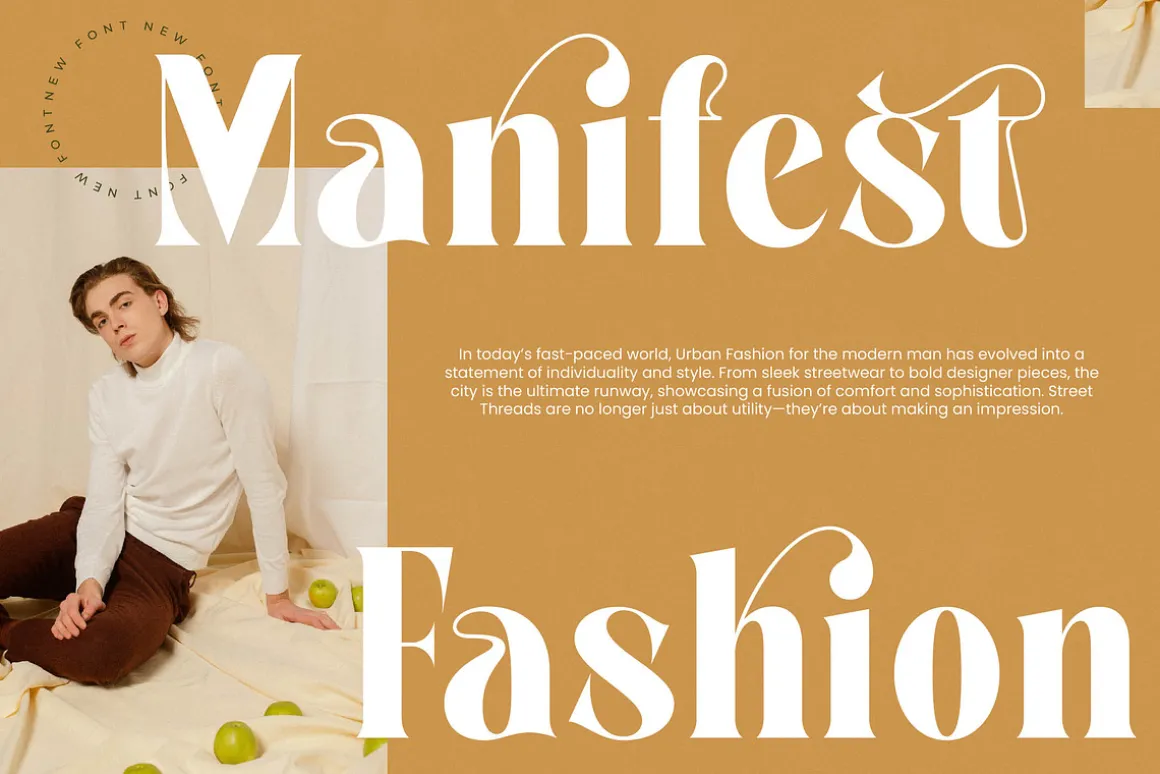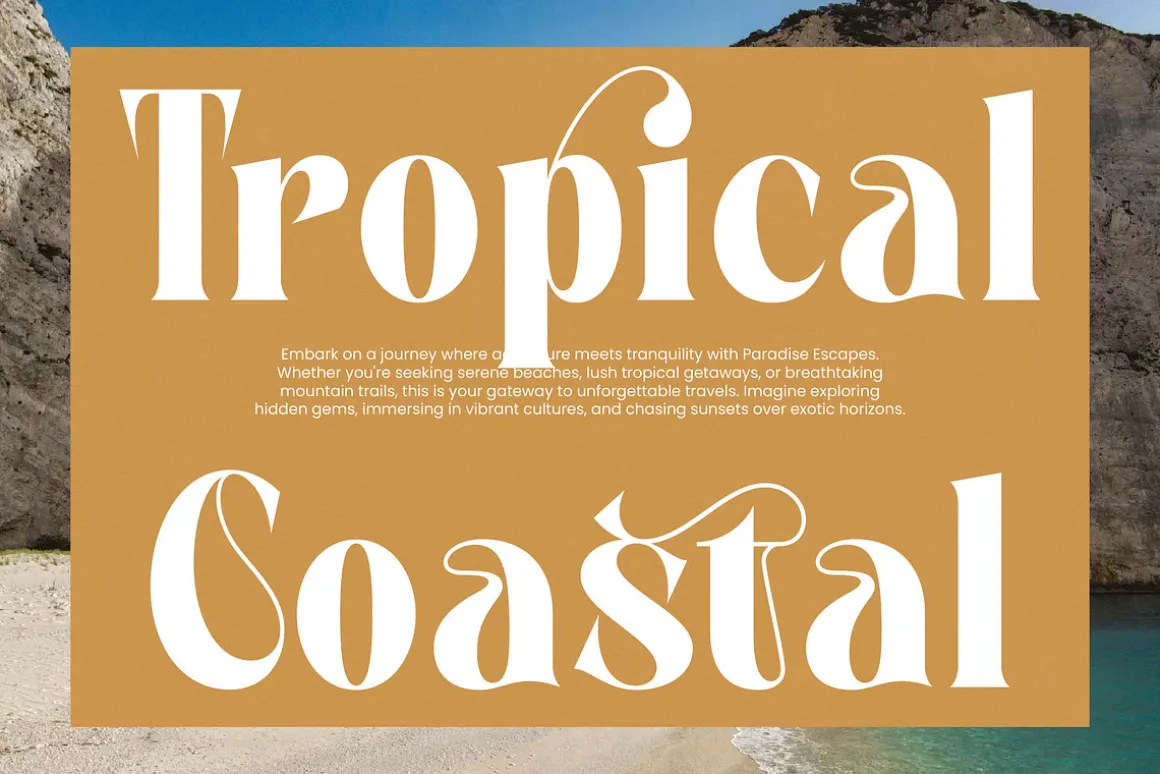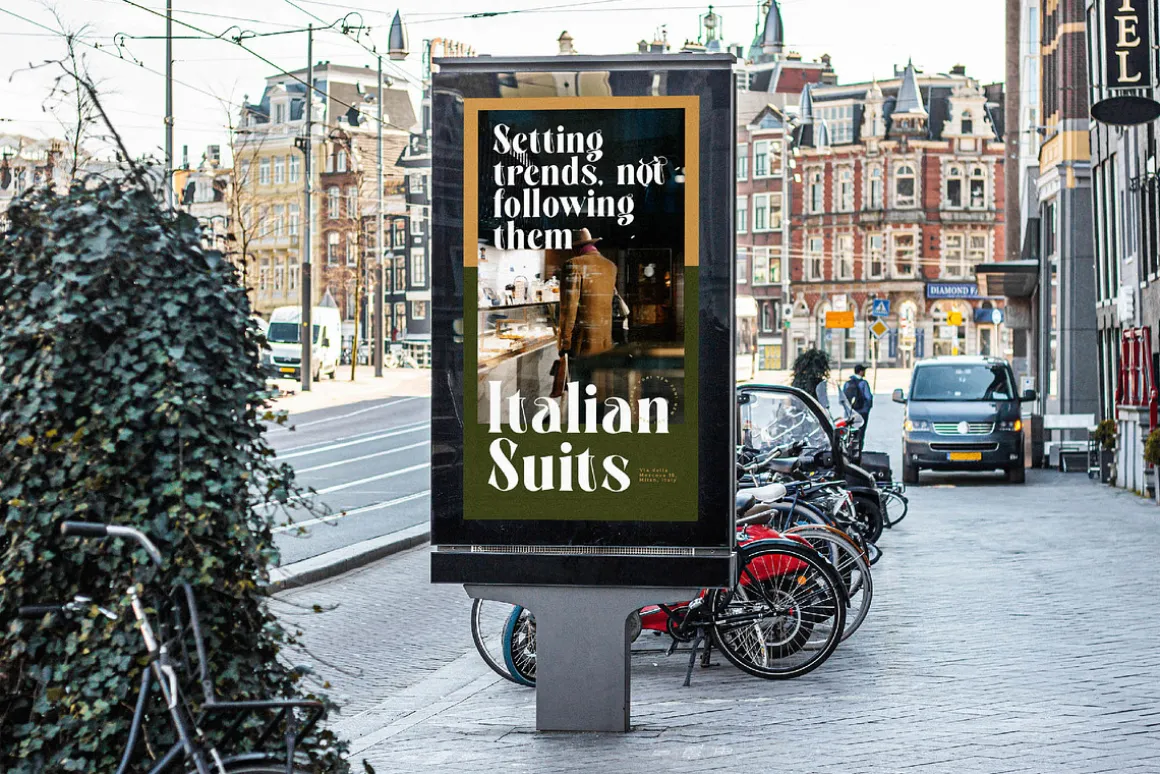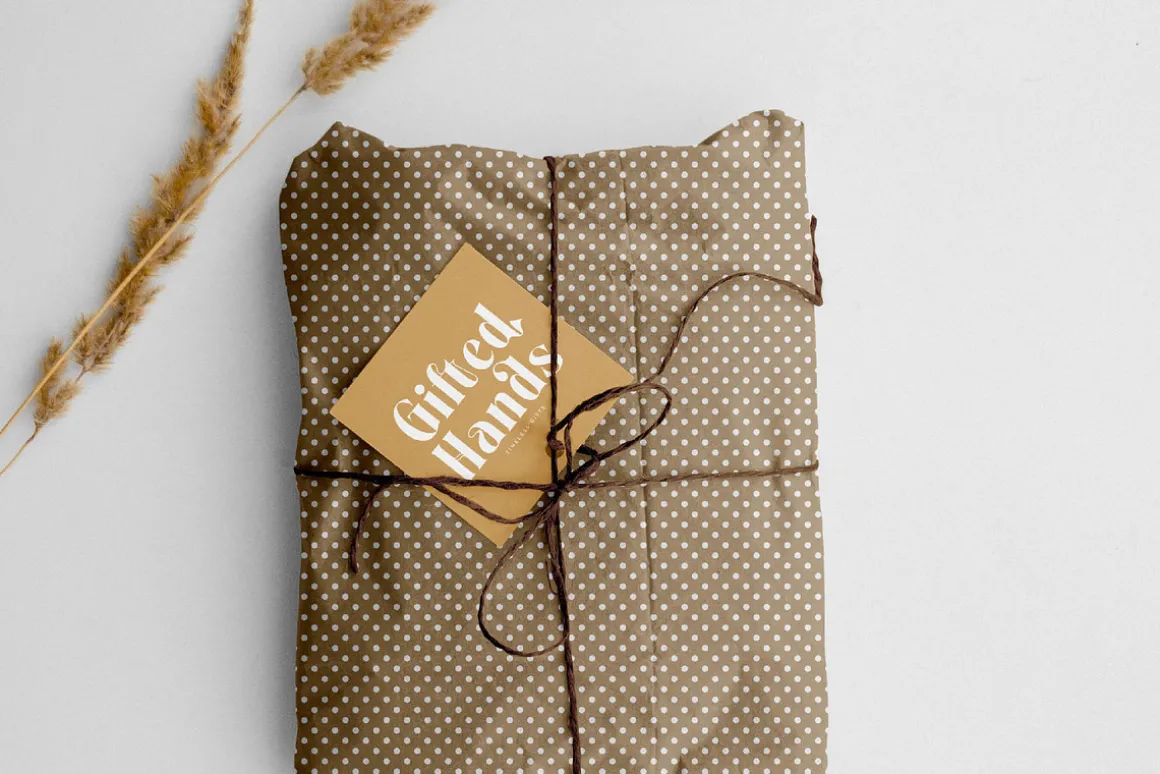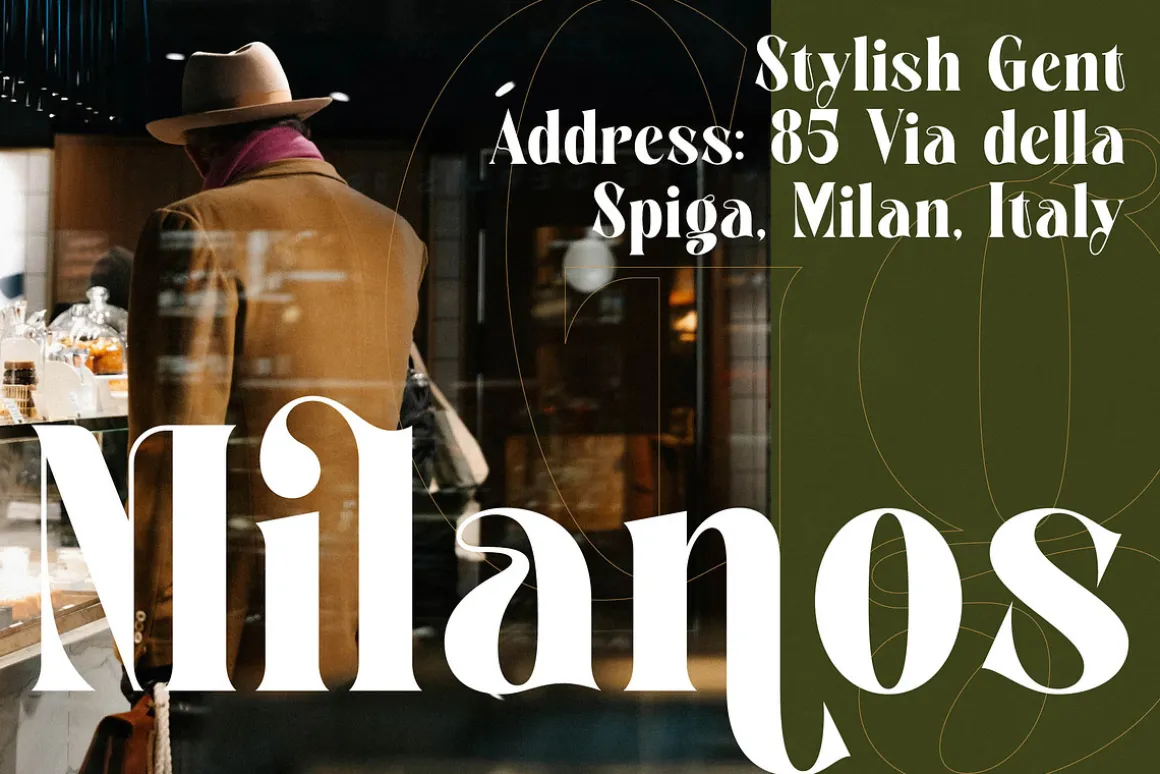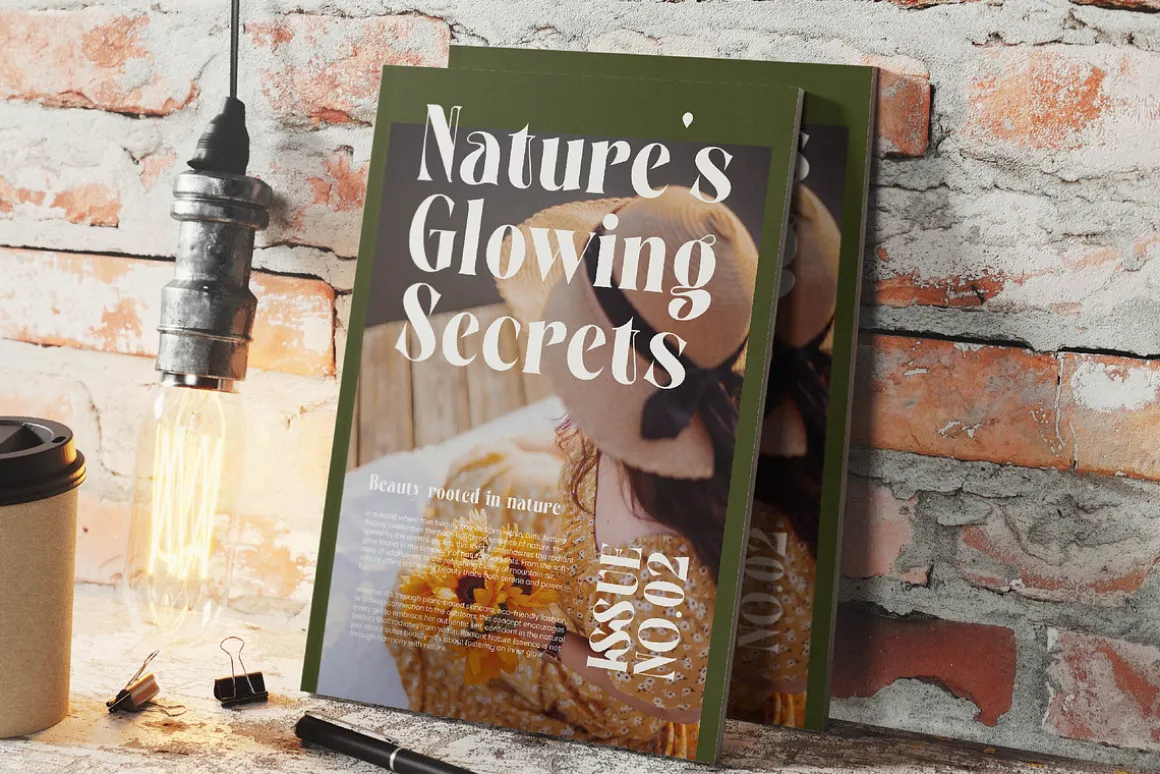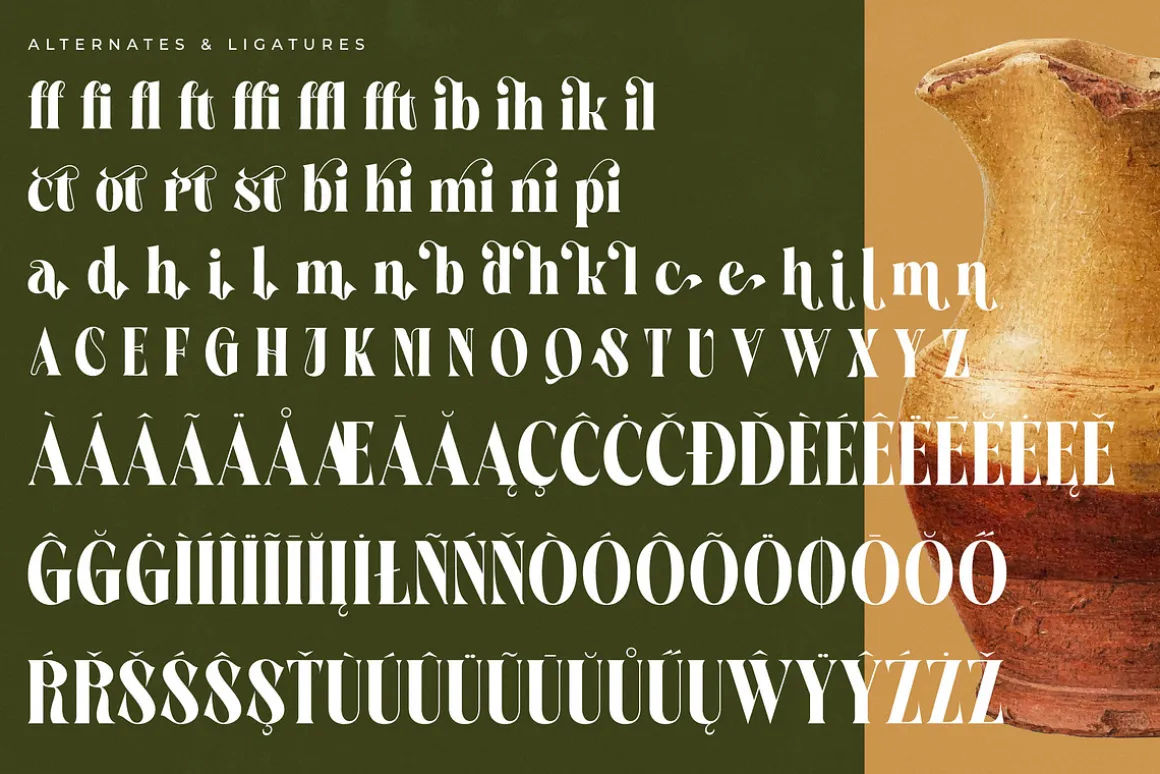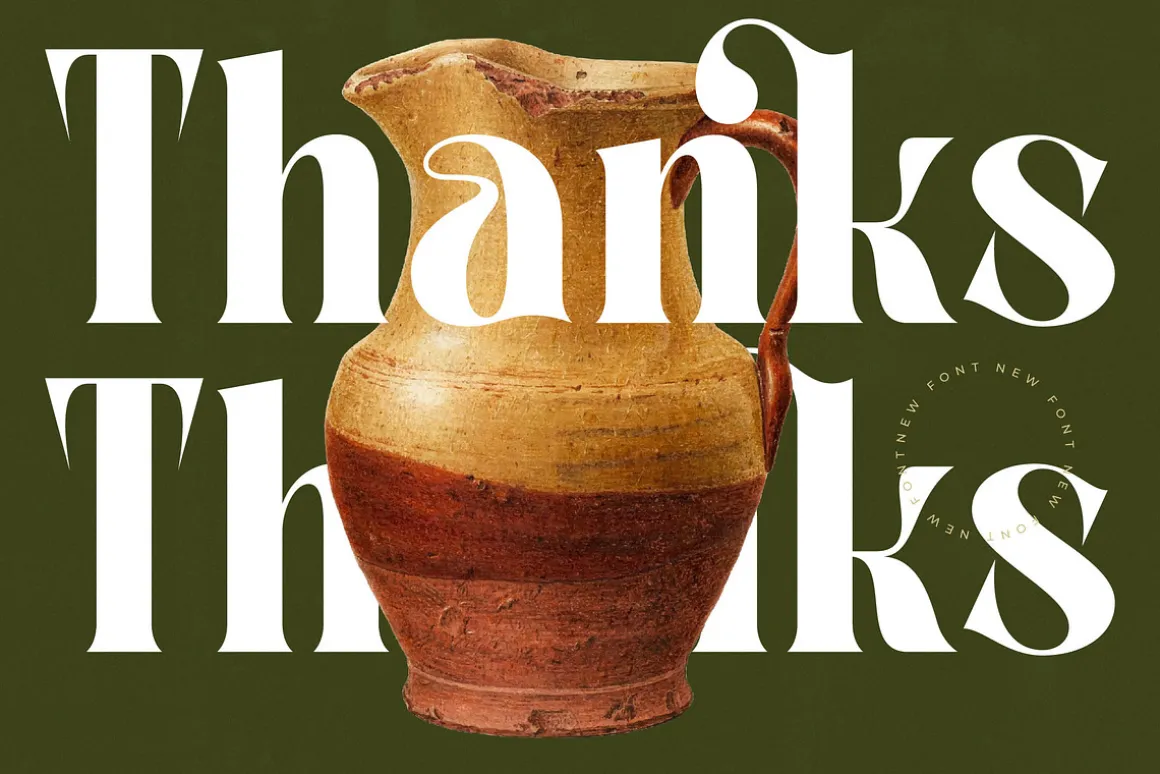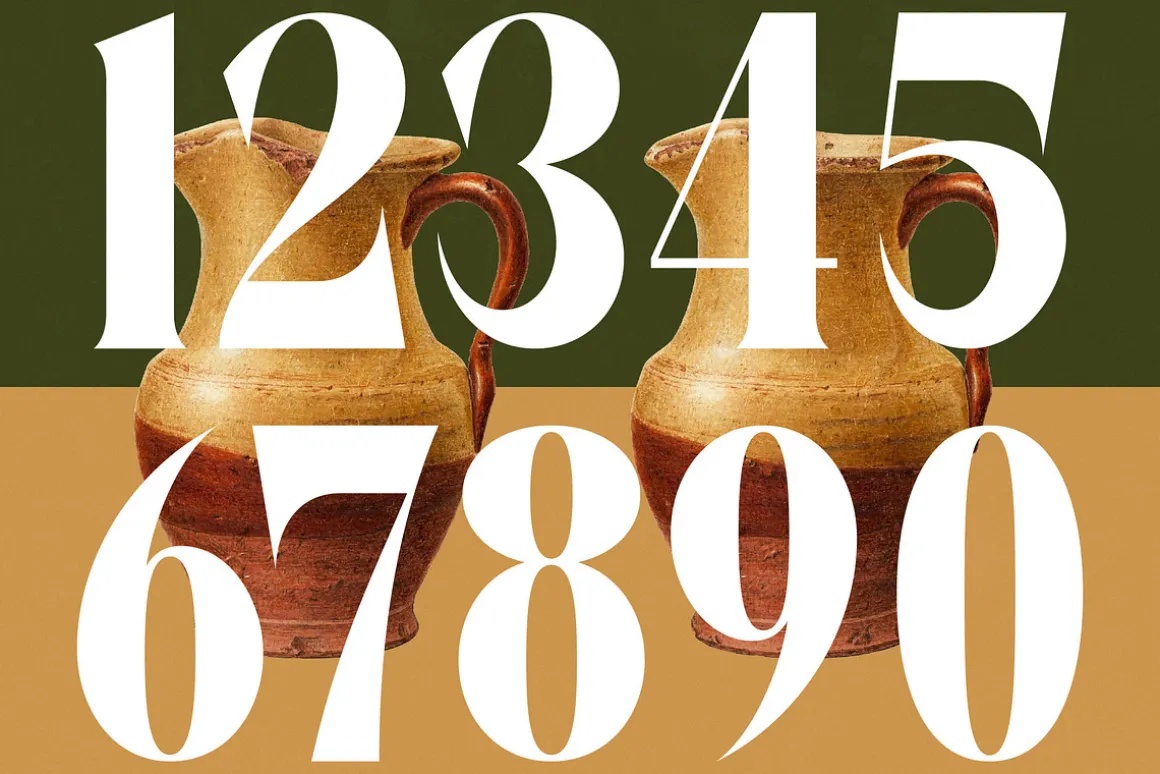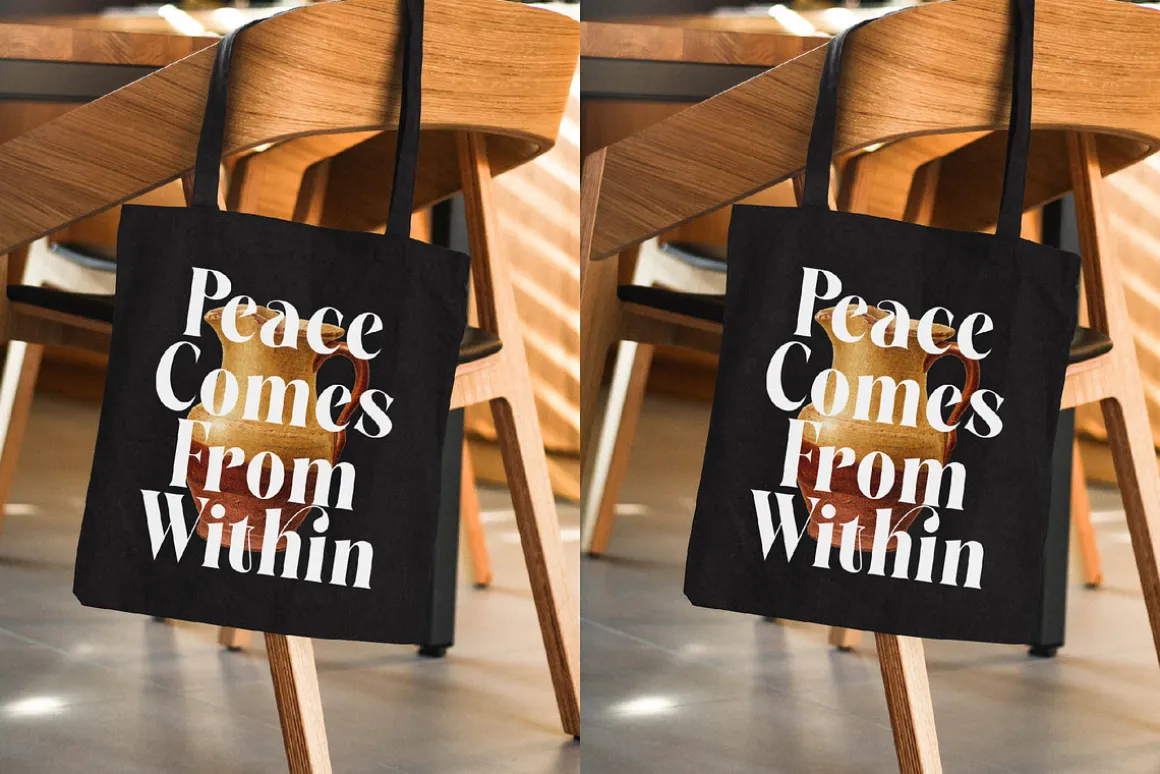
Martego is a masterclass in sophisticated design, blending timeless elegance with a contemporary edge to captivate your audience instantly. This typeface commands attention with its bold strokes and graceful curves, making it an essential tool for designers seeking a unique voice.
Drawing inspiration from classical pottery and organic textures, the font reflects the warmth of terracotta and the richness of earth tones. It evokes a sense of artisanal craftsmanship, where every line tells a story of heritage meeting modern innovation.
The personality of this typeface lies in its modern serif display qualities, offering a luxury typography experience that balances weight and finesse. As a high-contrast serif, it delivers a powerful branding impact while maintaining the fluid readability of a high-end editorial font.
Perfectly aligned with the current modern serif trend, this typeface addresses the growing demand for editorial display fonts that break away from the mundane. It champions character-driven typography, allowing designers to create layouts that feel both nostalgic and ahead of their time.
This versatile typeface is the ultimate choice for high-impact logo design and comprehensive branding projects that require a touch of class. From sophisticated editorial layouts and luxury packaging to romantic wedding stationery and high-end fashion lookbooks, it adapts seamlessly to any premium context.
Beyond its stunning aesthetics, the package is packed with professional features including 20 unique ligatures, 39 creative alternates, and elegant swashes. With full multilingual support and a wide array of international characters, it ensures your message reaches a global audience without compromising on style.